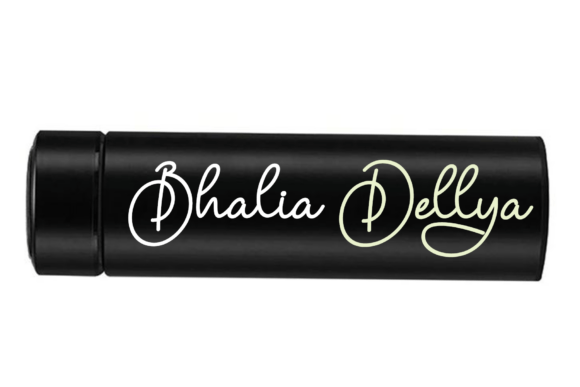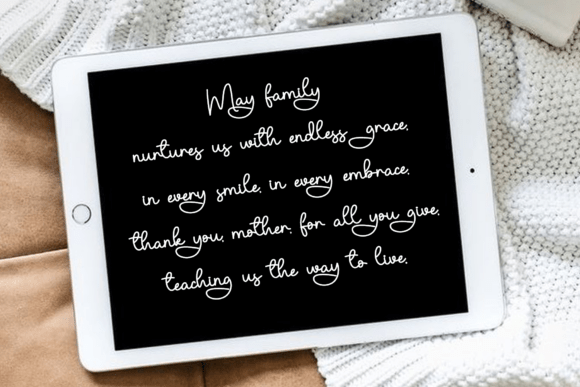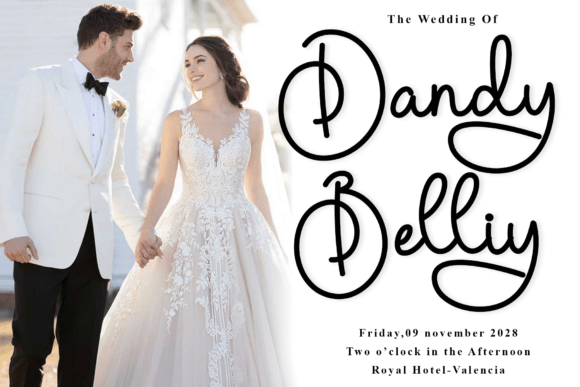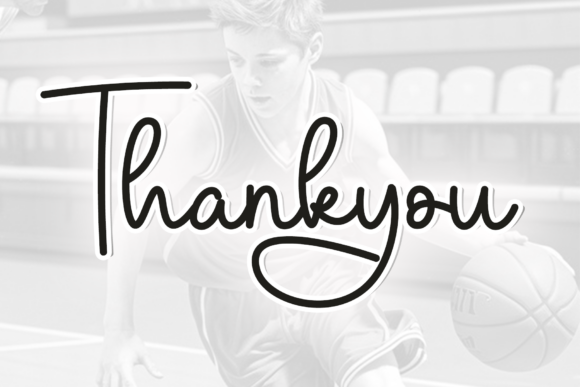
Dribbling Font: The Perfect Choice for Creative Designs
Are you a designer or crafter looking for a unique and beautiful font to elevate your creative projects? Look no further than the Dribbling Font! This lovely and timeless handwritten font is perfect for creating eye-catching logos, branding, and quotes that will make your design come alive.
What Makes Dribbling Font Special?
The Dribbling Font is a standout among other fonts due to its unique and beautiful touch. Every letter has been carefully crafted to have its own distinct character, making it perfect for adding a personal touch to your designs. Whether you’re creating a logo, branding materials, or quotes, this font is sure to make your design stand out from the crowd.
The Dribbling Font is incredibly versatile and can be used for a wide range of creative projects. Here are just a few ideas to get you started:
- Logos: Create a memorable and eye-catching logo for your business or brand with the Dribbling Font.
- Branding: Use the Dribbling Font to create consistent and recognizable branding across all your marketing materials.
- Quotes: Add a touch of elegance and sophistication to your quotes with the Dribbling Font.
- Stationery: Use the Dribbling Font to create beautiful and unique stationery, such as greeting cards, invitations, and more.
Why Choose Dribbling Font?
So why choose the Dribbling Font over other fonts? Here are just a few reasons:
- Unique and Beautiful: The Dribbling Font has a unique and beautiful touch that will make your design stand out.
- Timeless: This font is timeless and will never go out of style, making it a great investment for designers and crafters.
- Easy to Read: The Dribbling Font is easy to read, making it perfect for use in a wide range of applications.
- Versatile: This font is incredibly versatile and can be used for a wide range of creative projects.
Tips for Using Dribbling Font
Here are a few tips for getting the most out of the Dribbling Font:
- Use it sparingly: Use the Dribbling Font sparingly to add emphasis and create visual interest.
- Pair it with other fonts: Pair the Dribbling Font with other fonts to create a unique and visually appealing combination.
Key Features of Dribbling Font
- Handwritten font: The Dribbling Font is a beautiful handwritten font that adds a personal touch to your designs.
- Unique and beautiful: Every letter has a unique and beautiful touch that will make your design stand out.
- Timeless: This font is timeless and will never go out of style.
- Easy to read: The Dribbling Font is easy to read, making it perfect for use in a wide range of applications.
Specifications of Dribbling Font
- Font type: Handwritten
- Font style: Script